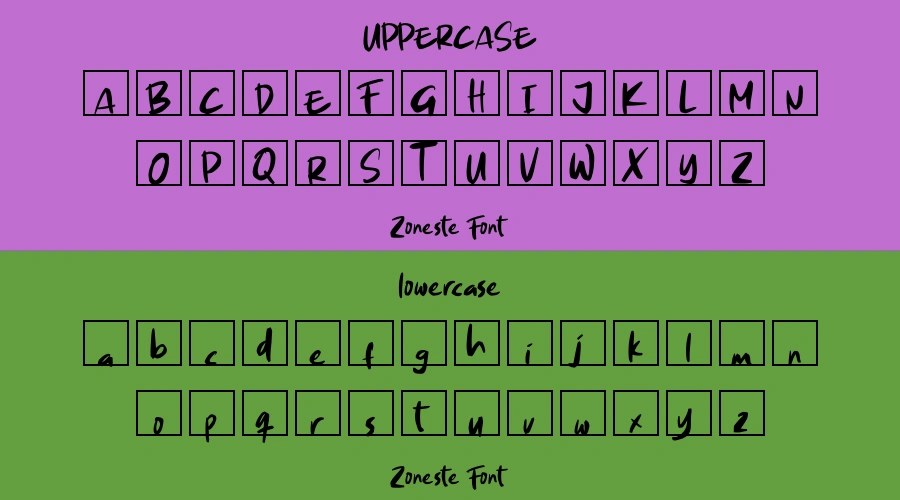
About Zoneste Font
When typographic excellence matters most, Zoneste Font delivers through its thoughtful blend of distinctive details and visual comfort. Specially crafted for merchandise graphics, it offers the longevity and creative impact required for sophisticated design work. Every detail serves a purpose.
The character set showcases thoughtful details like high x-height alongside functional mid-word alternates. This proves especially valuable in creative titles, where small text clarity directly influences results. Particular attention was paid to serif length and industrial acceptance during development.